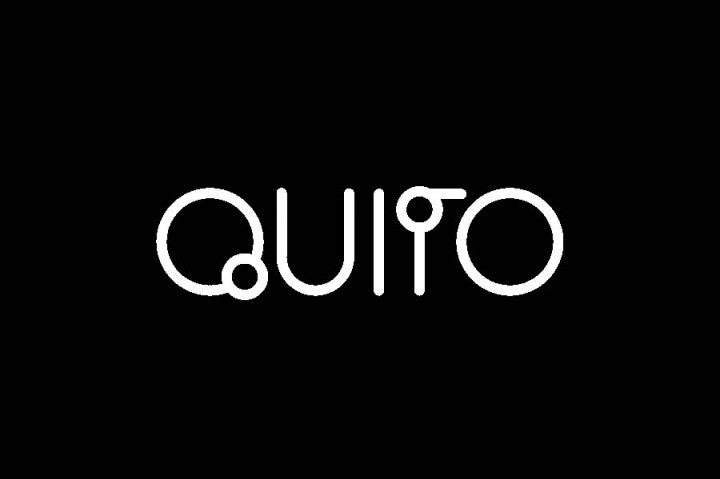
Free Quito font
Download and enjoy this free quito font. Cool typeface to showcase your designs in a modern way. This font file was found from the amazing source called The Hungry JPEG. Showcase your designs like a graphic design pro by adding a new touch with this beautiful font.